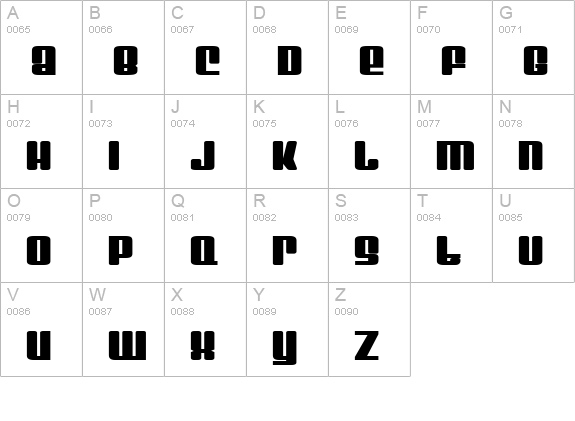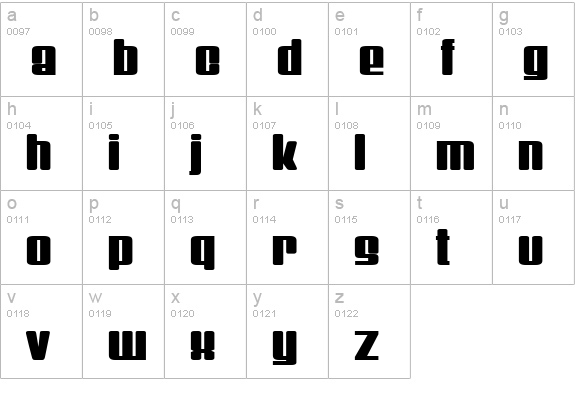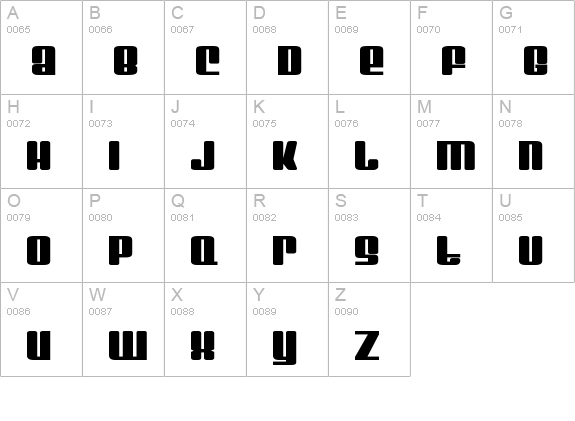
RichardManuel Font Details
RichardManuel font is a captivating and versatile typeface that effortlessly blends elegance with a touch of modernity. With its unique combination of sharp edges and subtle curves, this font captures attention and adds a distinct personality to any design project. Whether you are creating a logo, designing a poster, or crafting a memorable headline, RichardManuel font is the perfect choice to make your text stand out. What sets RichardManuel font apart is its incredible versatility. It can effortlessly adapt to various design styles, from sleek and minimalistic to bold and adventurous. The carefully crafted letterforms ensure legibility, making it suitable for both headlines and body text. Its wide range of weights allows you to experiment and find the perfect balance for your design. One of the most remarkable aspects of RichardManuel font is that it is free. Yes, you read it right - this exceptional font is freely available to download at FontsMarket.com. You no longer have to compromise on quality or break the bank to access a premium font. RichardManuel font offers the best of both worlds - a stunning design and accessibility for all. Designed with meticulous attention to detail, RichardManuel font is a testament to the creativity and skill of its designer. Its carefully crafted letterforms, exquisite curves, and sharp edges come together to create a truly captivating and unique typeface. Whether you are a professional designer or a creative enthusiast, RichardManuel font will inspire you to push boundaries and create designs that leave a lasting impression. So why wait? Visit FontsMarket.com today and experience the beauty and versatility of RichardManuel font. Download it for free and unleash your creativity like never before. With RichardManuel font, your designs will truly shine and captivate audiences.